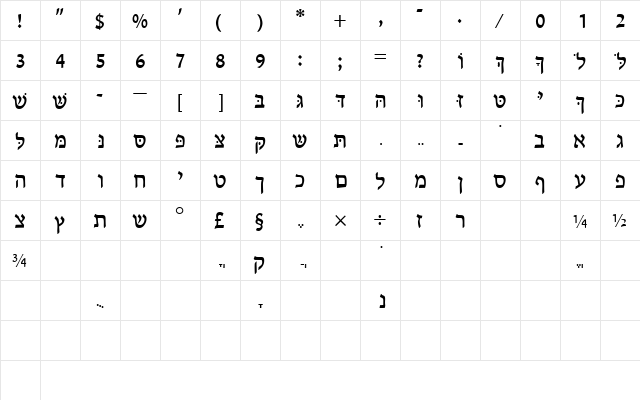
CabaloSSK Regular
Design Context for CabaloSSK Typeface
CabaloSSK offers clean, dependable letterforms without strong stylistic allegiance, making it a practical choice for designers who need flexibility.